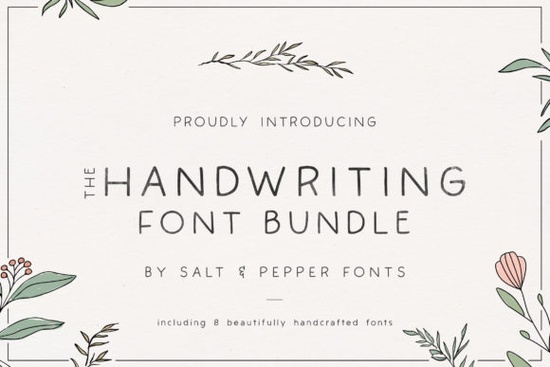
If you’ve been searching for a way to add warmth and personality to your designs without spending hours hand-lettering, The Handwriting Bundle Font might be exactly what you need. It’s not just one font it’s eight distinct handwriting-style typefaces, each with its own character and charm. Whether you’re designing t-shirts, greeting cards, social media graphics, or printable wall art, these fonts help you create work that feels personal, crafted, and full of life.
What’s included in the bundle?
- LazySunday – relaxed, slightly slanted, perfect for casual quotes
- DaisyChain – playful loops and bouncy baseline, ideal for kids’ products
- InkwellScript – elegant, ink-dipped flow for wedding invites or branding
- ChalkboardDreams – textured, uneven strokes that feel authentically hand-drawn
- MorningPages – minimal, clean cursive for journals or planners
- WildflowerPen – organic, freeform style with charming irregularity
- CafeNotes – cozy, coffee-shop vibe with soft curves
- DearFriend – intimate, letter-like script for heartfelt messages
Who is this bundle best for?
Also, remember that while these fonts look casual, they’re professionally built. Kerning pairs and Unicode support mean they’ll behave well even in longer text blocks though, as mentioned, they shine brightest in headlines, logos, or short phrases.